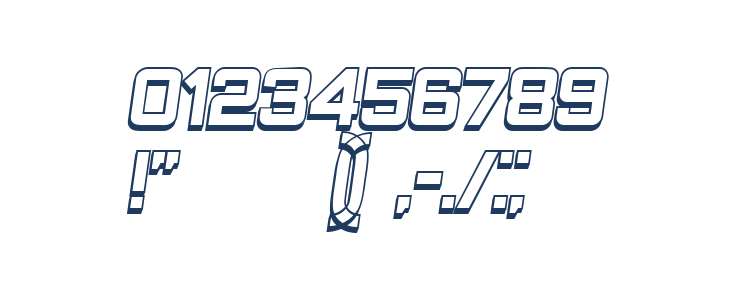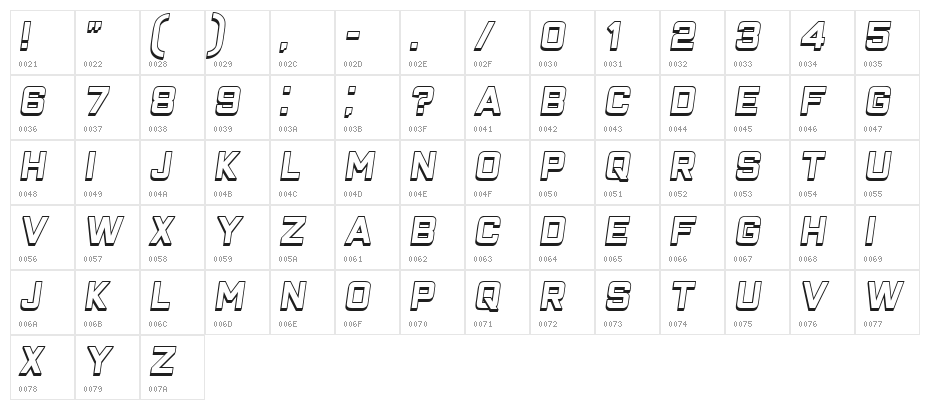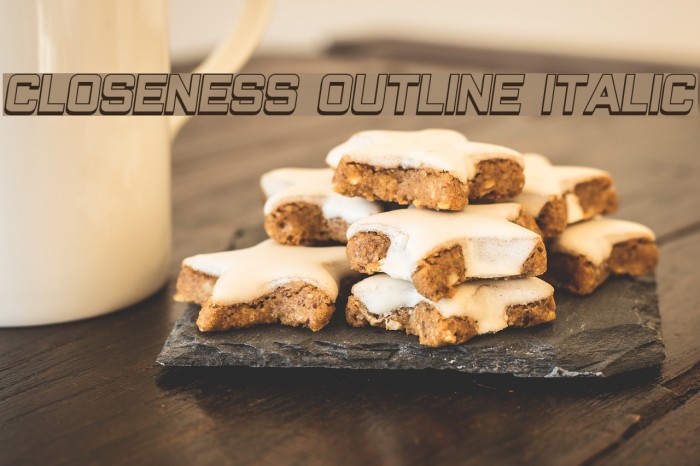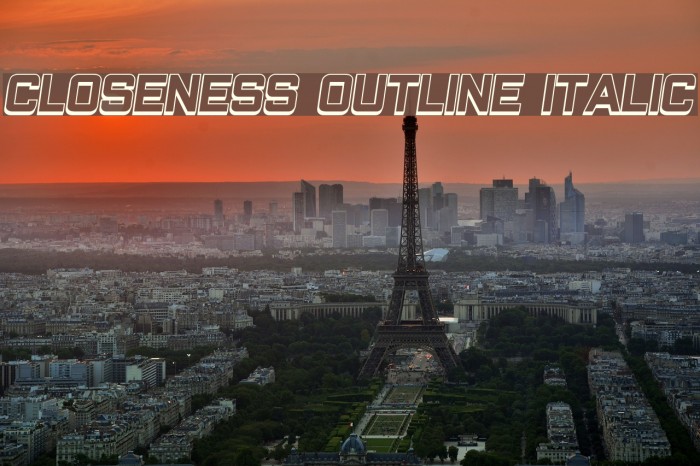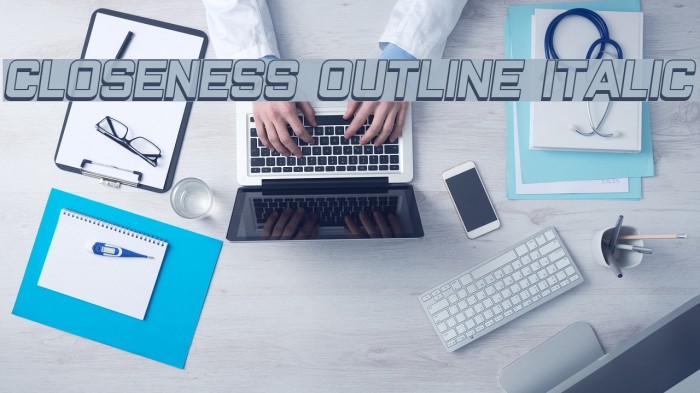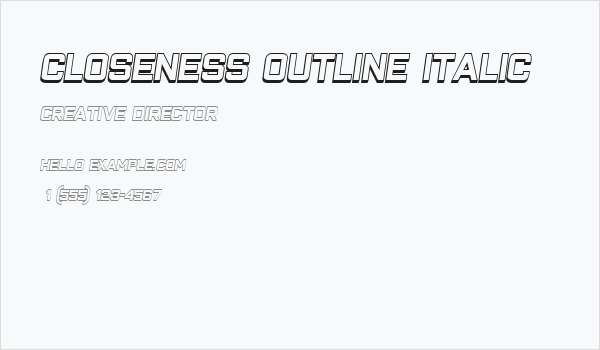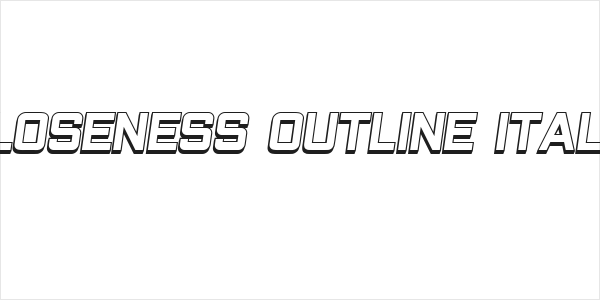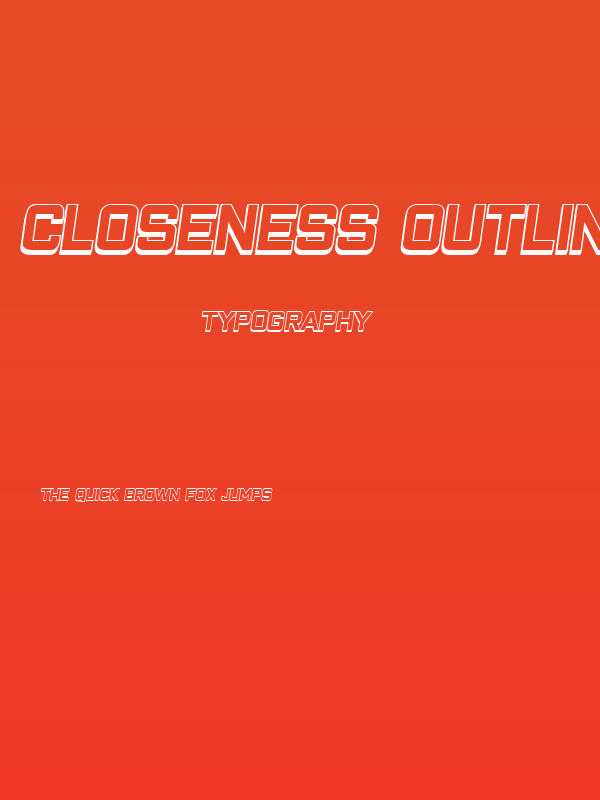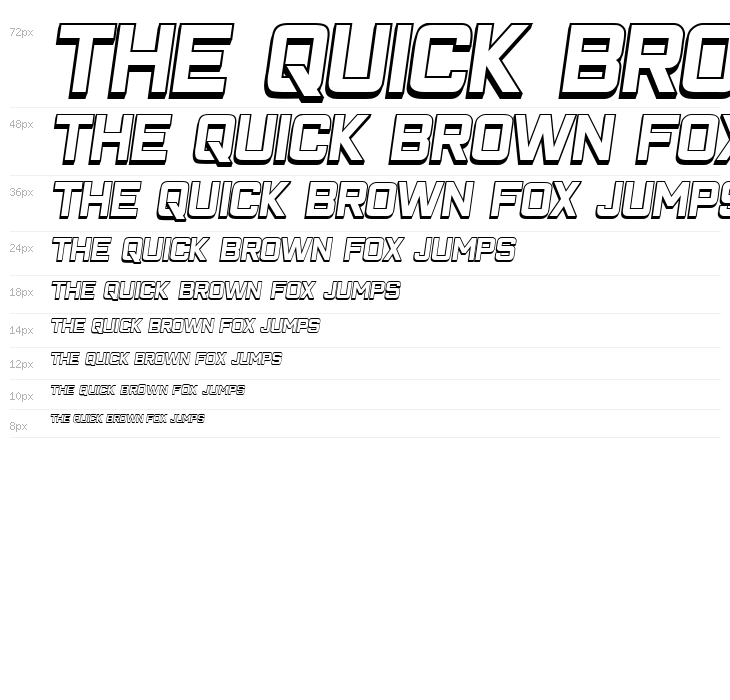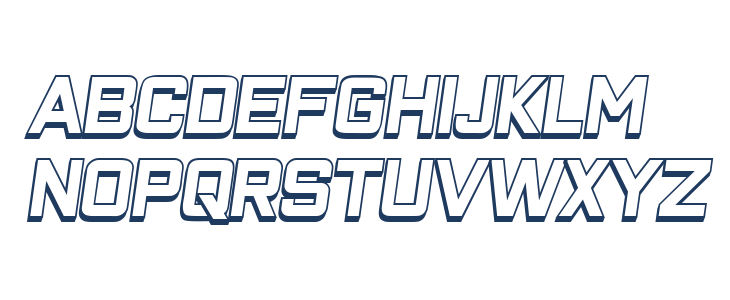
Closeness Outline Italic Font
Closeness Outline Italic Description
This font features a bold, italicized style with a distinct outline that gives it a three-dimensional appearance. The characters are uppercase and numerals, each with a consistent stroke width that maintains clarity and readability. The italic slant adds a dynamic and forward-moving feel, making it ideal for attention-grabbing headlines or titles. The outline effect enhances the visual impact, making the text stand out against various backgrounds. The font's geometric structure and clean lines contribute to a modern and professional look, suitable for a range of design applications.
| Proposed Projects | Ideal for sports branding, event posters, dynamic headlines, and modern logo designs. |